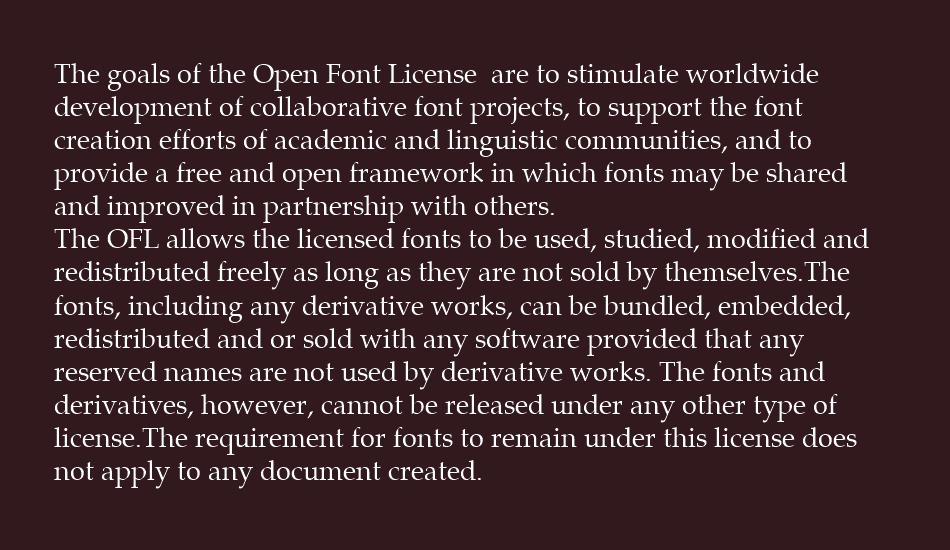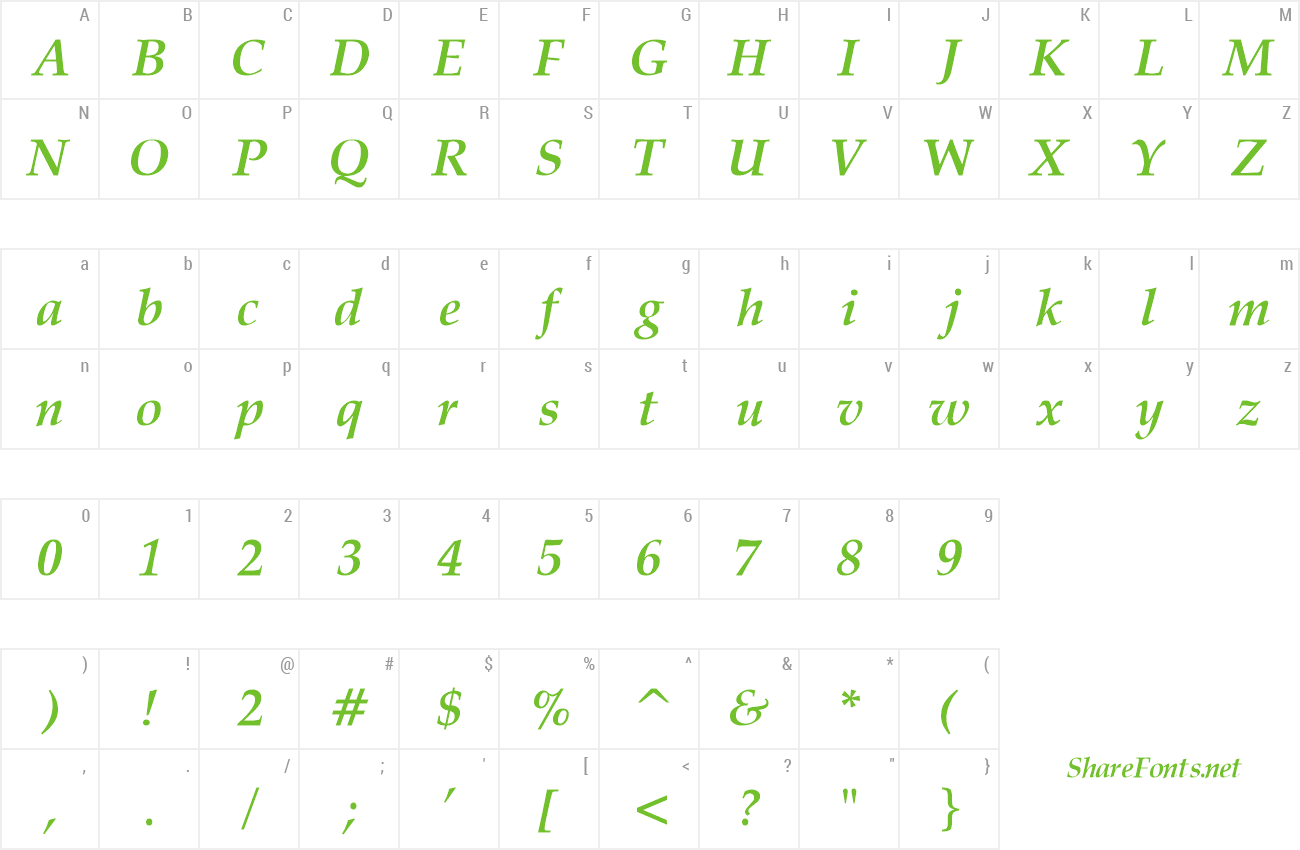
Palatino Font Download - The palatino font, available for free download with the file palatino.ttf, is a classic and timeless typeface that has remained popular You can download the palatino font to your computer or. This font is derived with the help of humanist. Giambattista palatino was a famous italian artist and the master of calligraphy in the 16th century. Palatino font family designed by unknown designer has a total of 1 different styles.
The palatino font, available for free download with the file palatino.ttf, is a classic and timeless typeface that has remained popular Palatino font family designed by unknown designer has a total of 1 different styles. You can download the palatino font to your computer or. Giambattista palatino was a famous italian artist and the master of calligraphy in the 16th century. This font is derived with the help of humanist.
You can download the palatino font to your computer or. The palatino font, available for free download with the file palatino.ttf, is a classic and timeless typeface that has remained popular Giambattista palatino was a famous italian artist and the master of calligraphy in the 16th century. This font is derived with the help of humanist. Palatino font family designed by unknown designer has a total of 1 different styles.
You can download the palatino font to your computer or. The palatino font, available for free download with the file palatino.ttf, is a classic and timeless typeface that has remained popular Giambattista palatino was a famous italian artist and the master of calligraphy in the 16th century. Palatino font family designed by unknown designer has a total of 1 different.
Giambattista palatino was a famous italian artist and the master of calligraphy in the 16th century. This font is derived with the help of humanist. The palatino font, available for free download with the file palatino.ttf, is a classic and timeless typeface that has remained popular Palatino font family designed by unknown designer has a total of 1 different styles..
Palatino font family designed by unknown designer has a total of 1 different styles. You can download the palatino font to your computer or. The palatino font, available for free download with the file palatino.ttf, is a classic and timeless typeface that has remained popular This font is derived with the help of humanist. Giambattista palatino was a famous italian.
The palatino font, available for free download with the file palatino.ttf, is a classic and timeless typeface that has remained popular You can download the palatino font to your computer or. Palatino font family designed by unknown designer has a total of 1 different styles. This font is derived with the help of humanist. Giambattista palatino was a famous italian.
This font is derived with the help of humanist. The palatino font, available for free download with the file palatino.ttf, is a classic and timeless typeface that has remained popular You can download the palatino font to your computer or. Palatino font family designed by unknown designer has a total of 1 different styles. Giambattista palatino was a famous italian.
This font is derived with the help of humanist. You can download the palatino font to your computer or. Giambattista palatino was a famous italian artist and the master of calligraphy in the 16th century. The palatino font, available for free download with the file palatino.ttf, is a classic and timeless typeface that has remained popular Palatino font family designed.
Palatino Font Free Download
Palatino font family designed by unknown designer has a total of 1 different styles. This font is derived with the help of humanist. Giambattista palatino was a famous italian artist and the master of calligraphy in the 16th century. You can download the palatino font to your computer or. The palatino font, available for free download with the file palatino.ttf,.
TOP Free Palatino Font Download
Giambattista palatino was a famous italian artist and the master of calligraphy in the 16th century. You can download the palatino font to your computer or. This font is derived with the help of humanist. The palatino font, available for free download with the file palatino.ttf, is a classic and timeless typeface that has remained popular Palatino font family designed.
Palatino Bold Font Free Font Download Thousands of Fonts
You can download the palatino font to your computer or. Palatino font family designed by unknown designer has a total of 1 different styles. This font is derived with the help of humanist. Giambattista palatino was a famous italian artist and the master of calligraphy in the 16th century. The palatino font, available for free download with the file palatino.ttf,.
This font is derived with the help of humanist. Palatino font family designed by unknown designer has a total of 1 different styles. The palatino font, available for free download with the file palatino.ttf, is a classic and timeless typeface that has remained popular Giambattista palatino was a famous italian artist and the master of calligraphy in the 16th century.